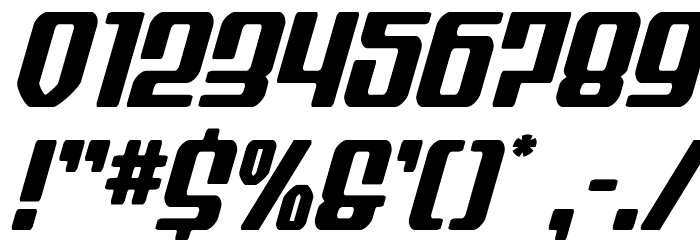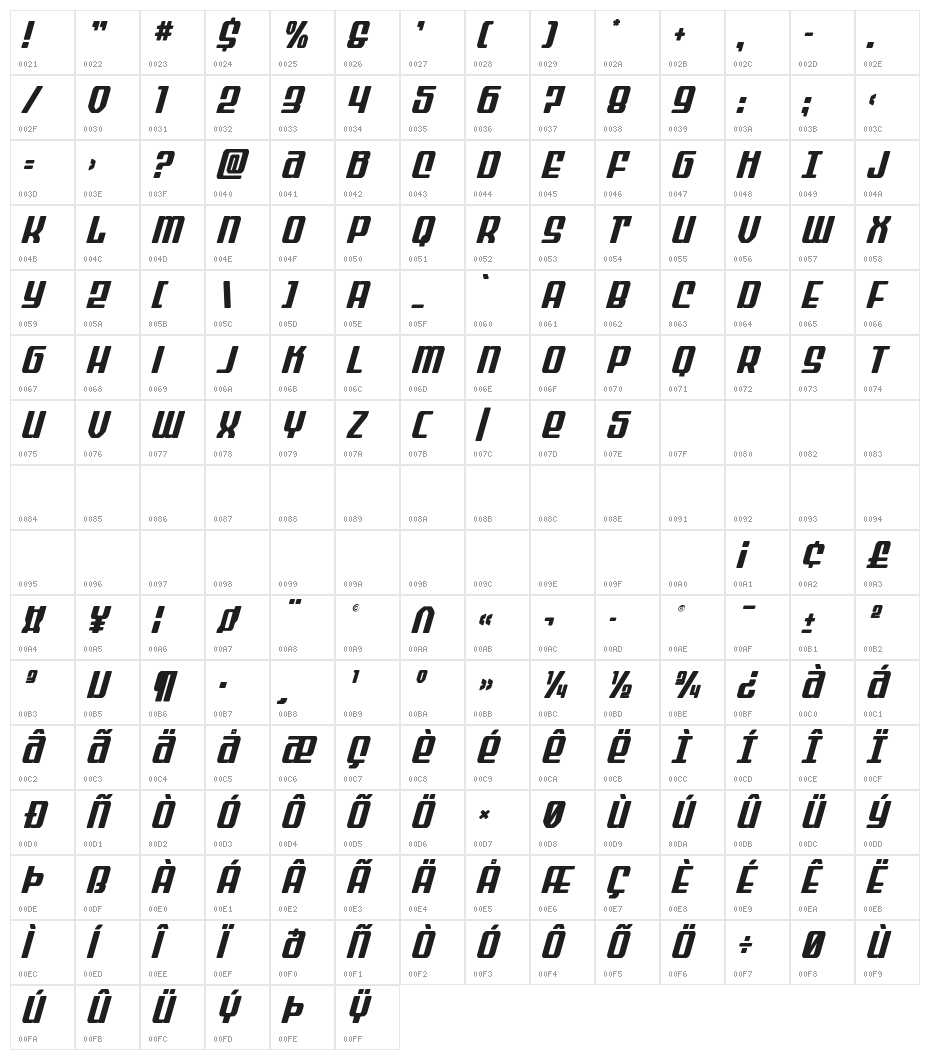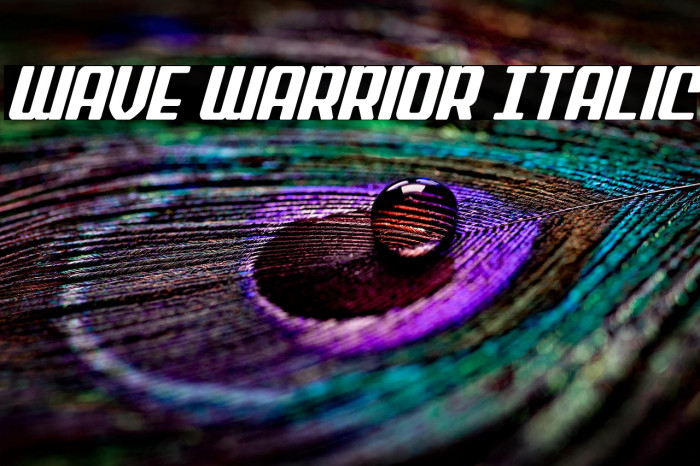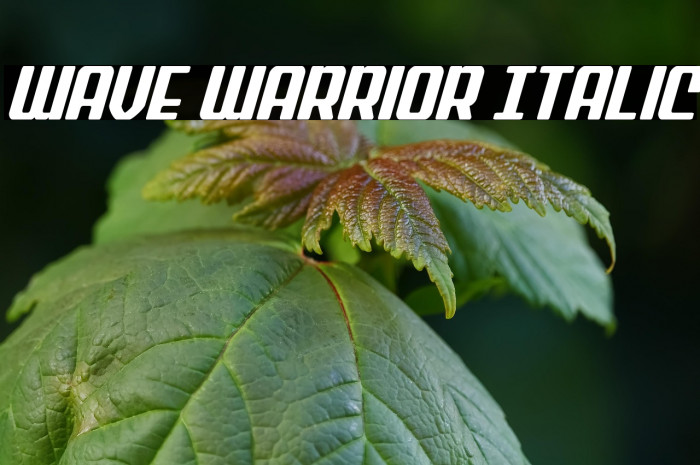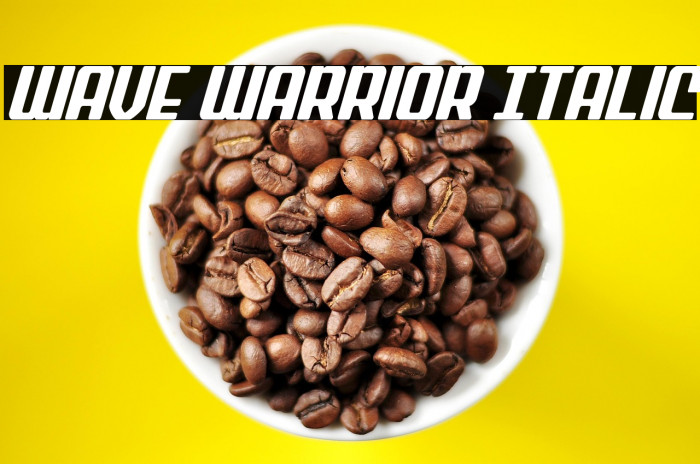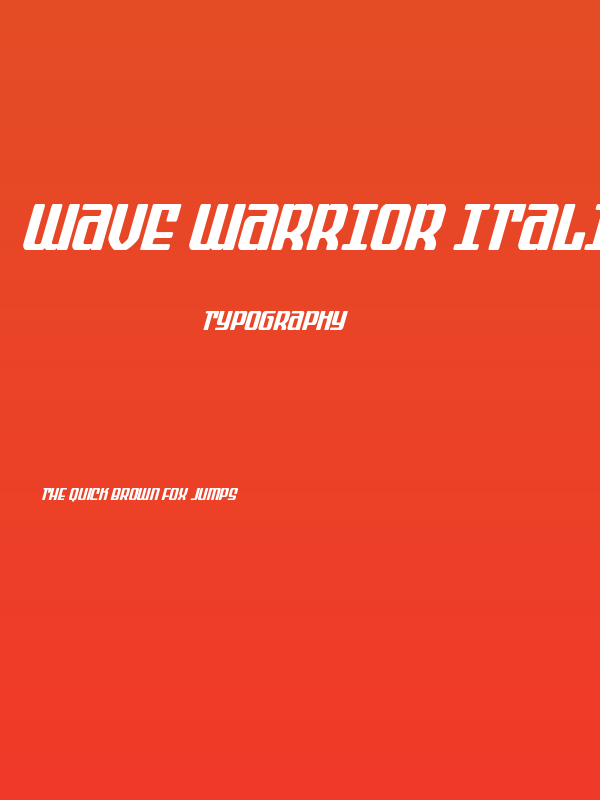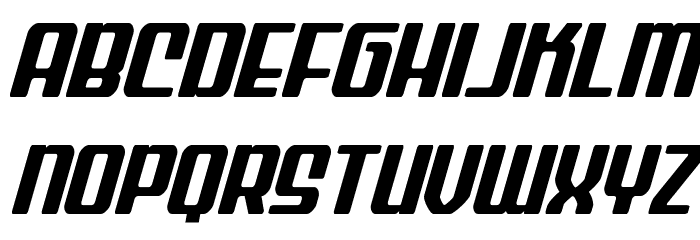
Wave Warrior Italic Font
Wave Warrior Italic Description
This font features a bold, italicized style with a strong, dynamic presence. The characters are slightly slanted, giving a sense of motion and energy. The strokes are thick and consistent, providing a robust and impactful appearance. The design is modern and sleek, with a futuristic touch, making it suitable for attention-grabbing headlines and branding. The uppercase and lowercase letters maintain a uniform width, contributing to a cohesive look. The numbers and special characters are designed to match the bold style, ensuring consistency across all elements.
| Proposed Projects | Ideal for sports branding, dynamic posters, and modern advertising campaigns. |